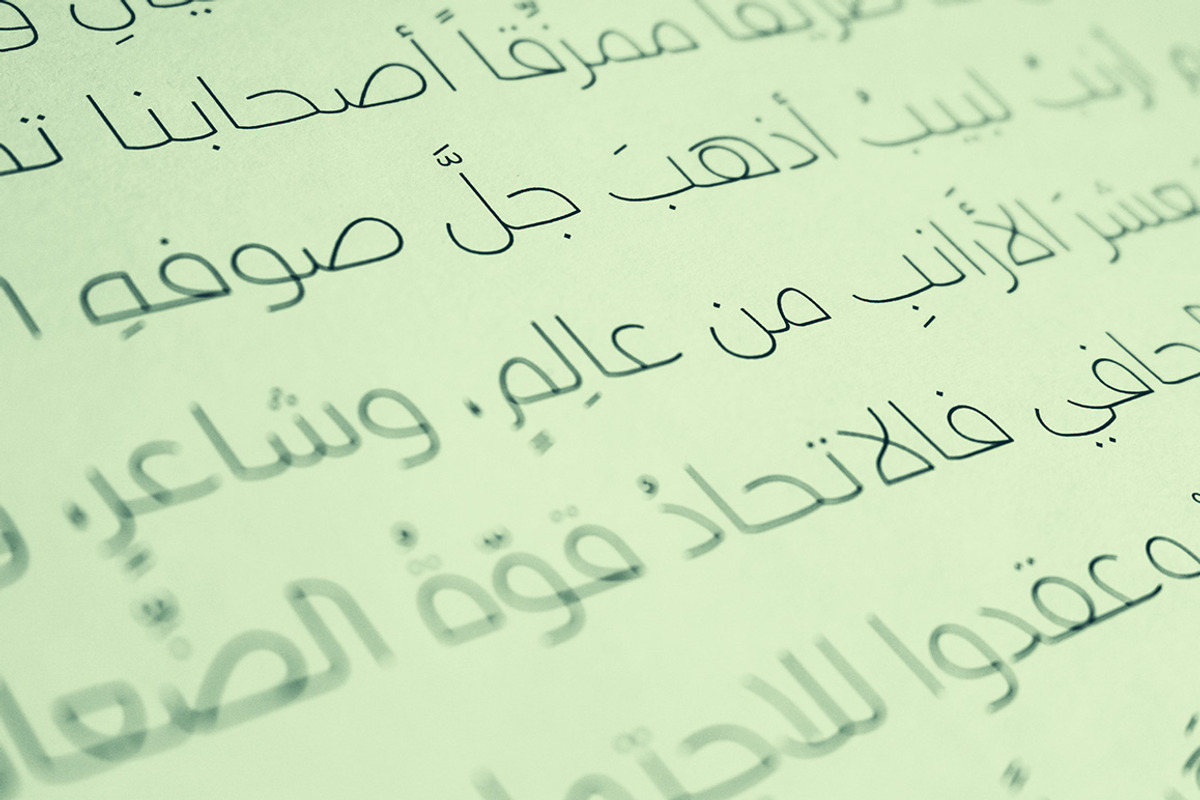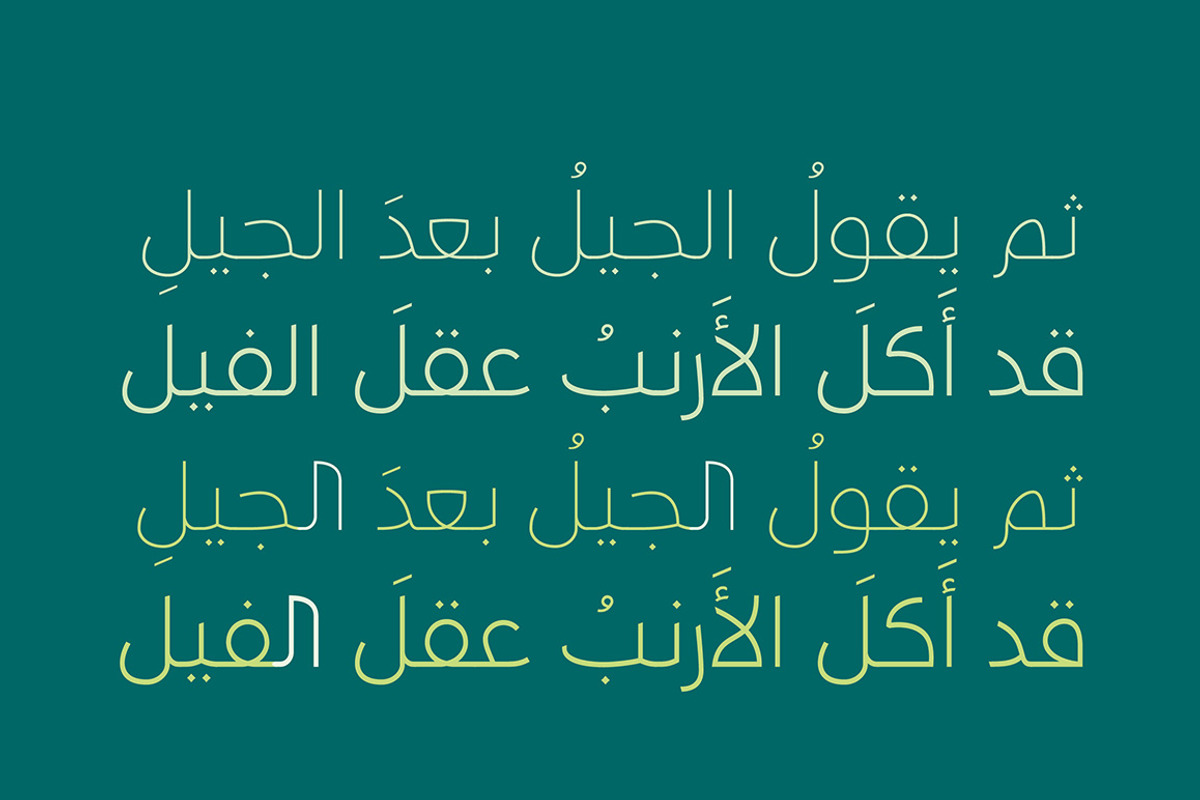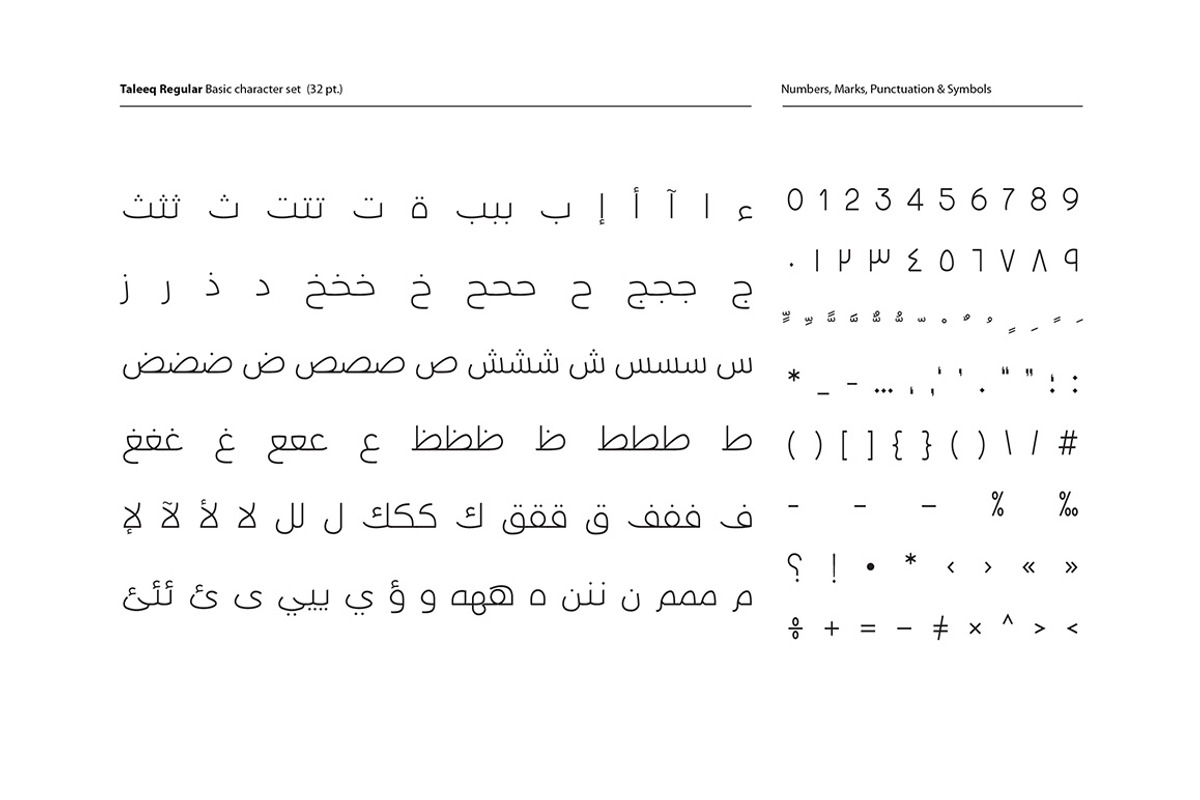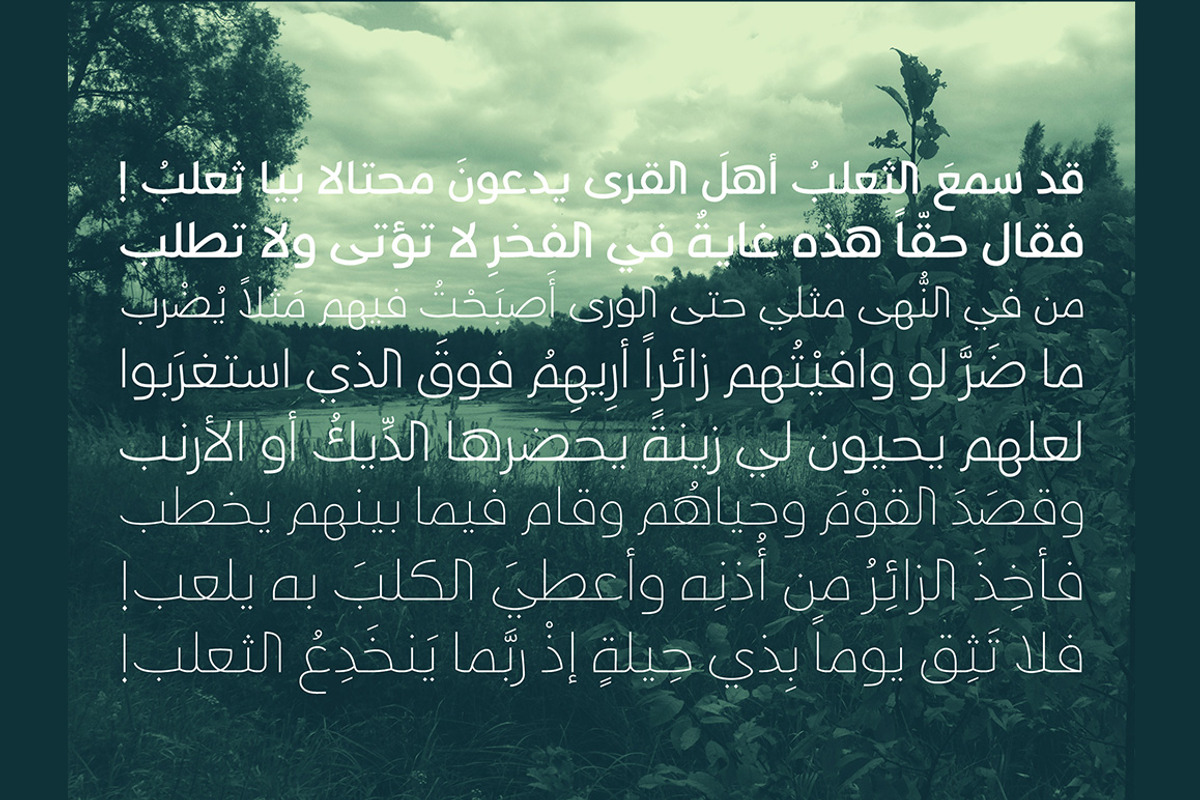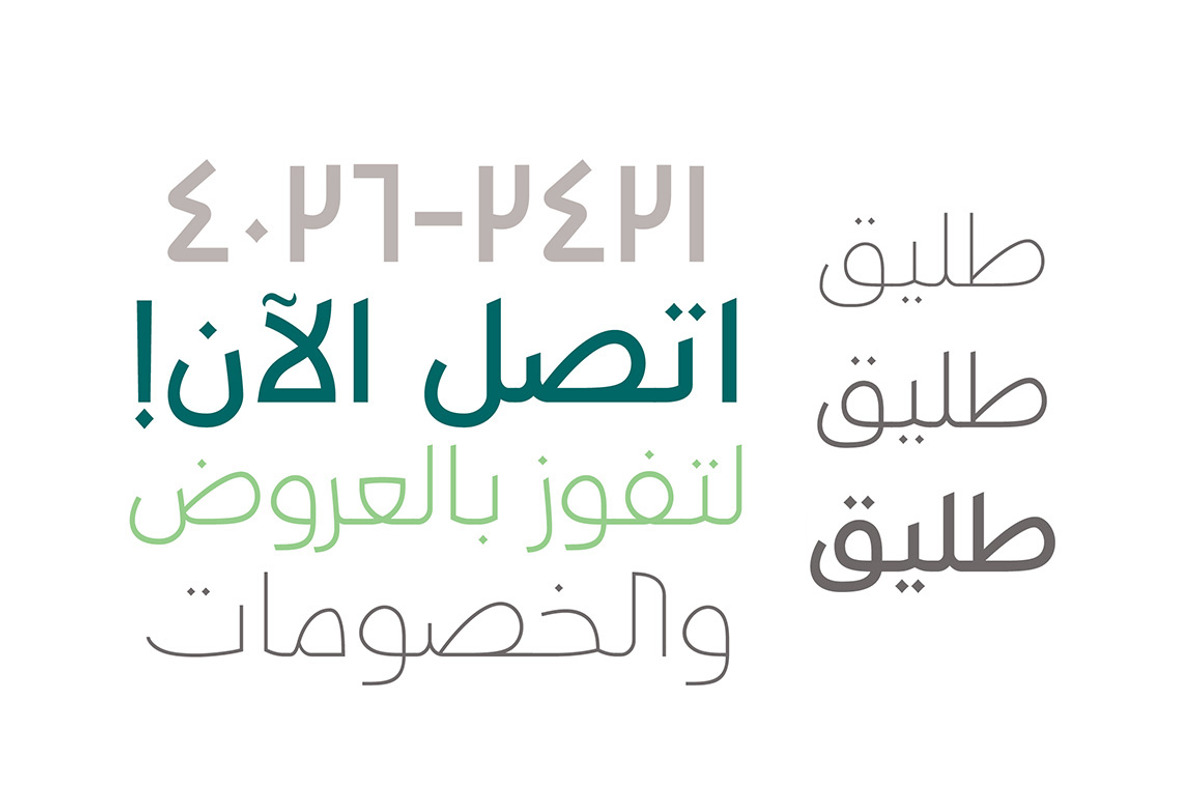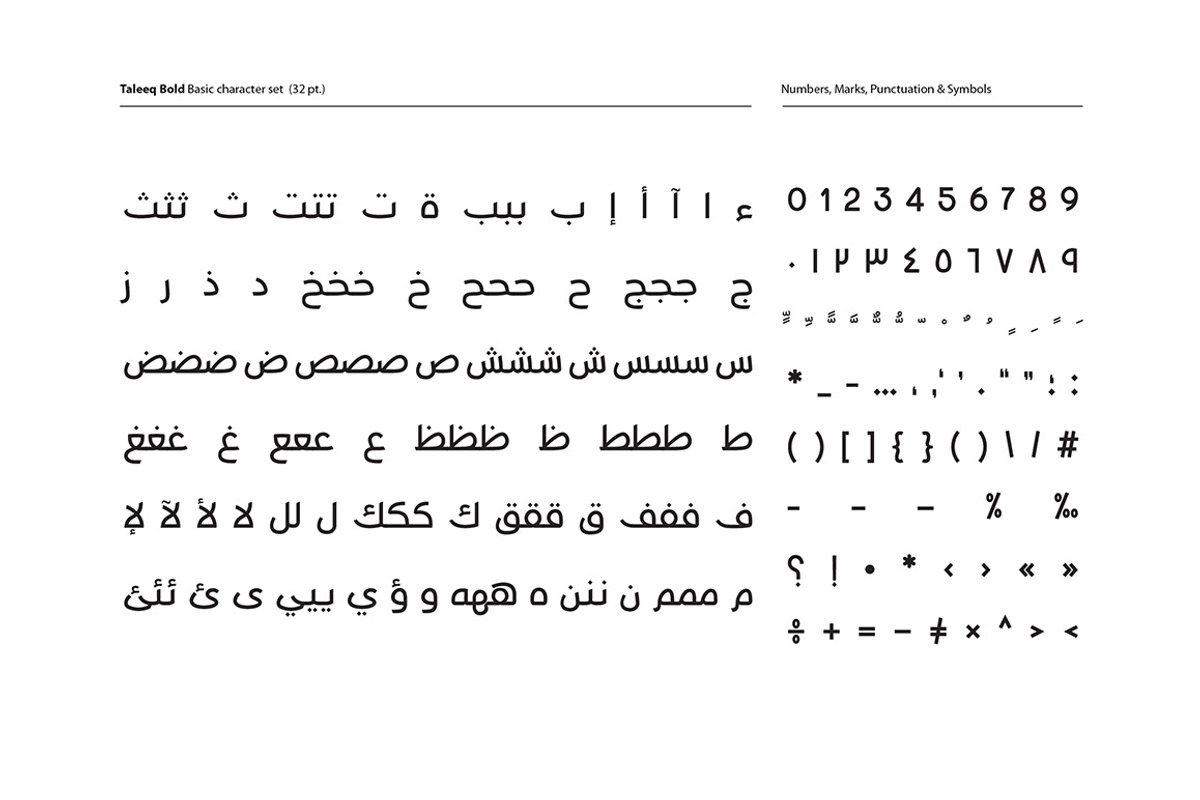
Taleeq - Arabic Typeface | خط طليق
Taleeq - Arabic Typeface | خط طليق by Mostafa El Abasiry is a font selected for branding, posters, packaging, typography.
Why Taleeq - Arabic Typeface | خط طليق is worth a look
Taleeq - Arabic Typeface | خط طليق by Mostafa El Abasiry fits naturally into Branding, posters, packaging, typography.